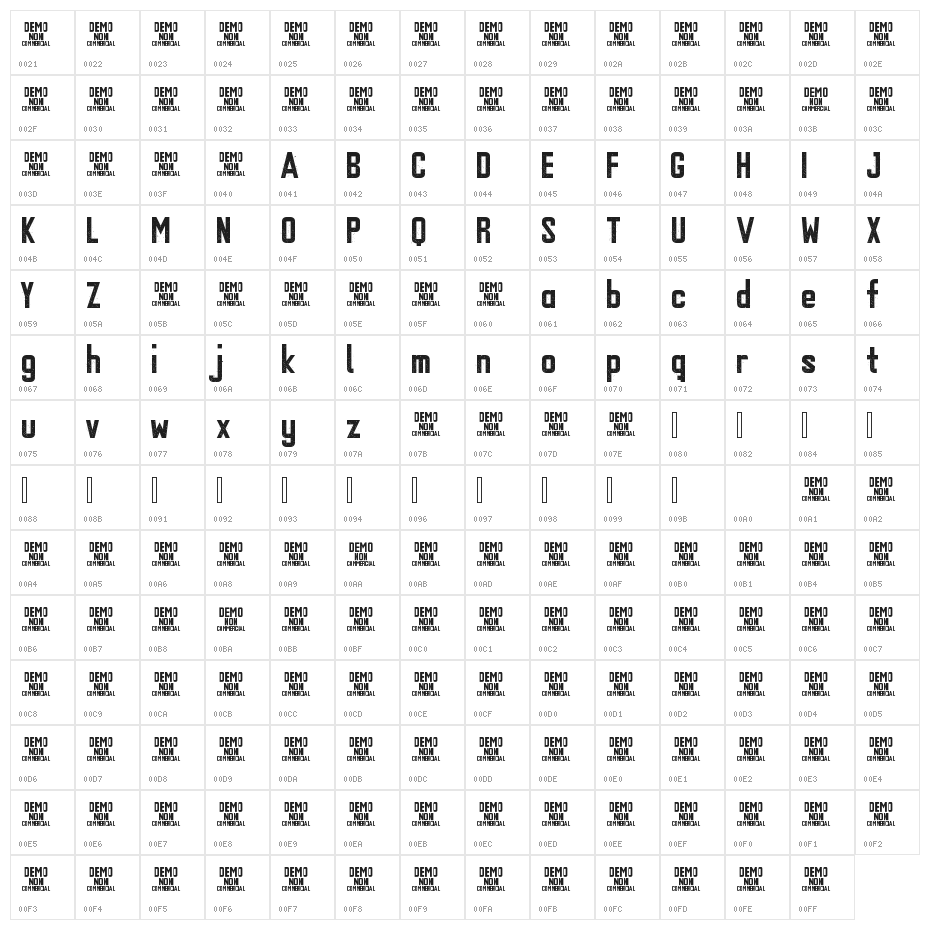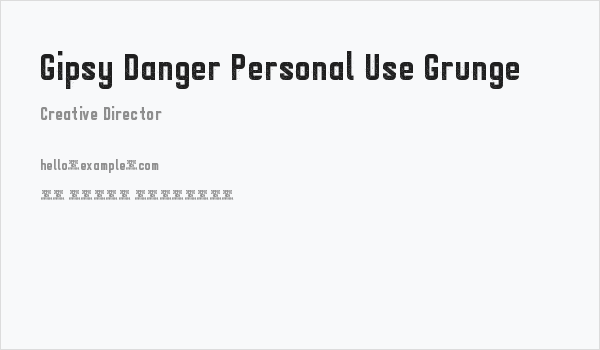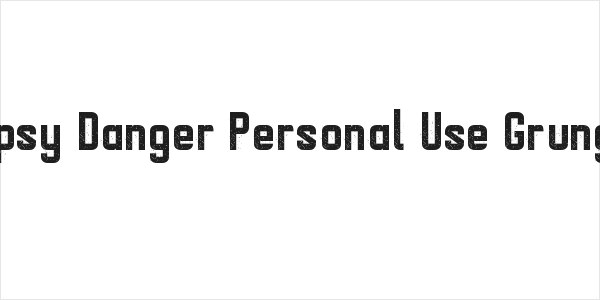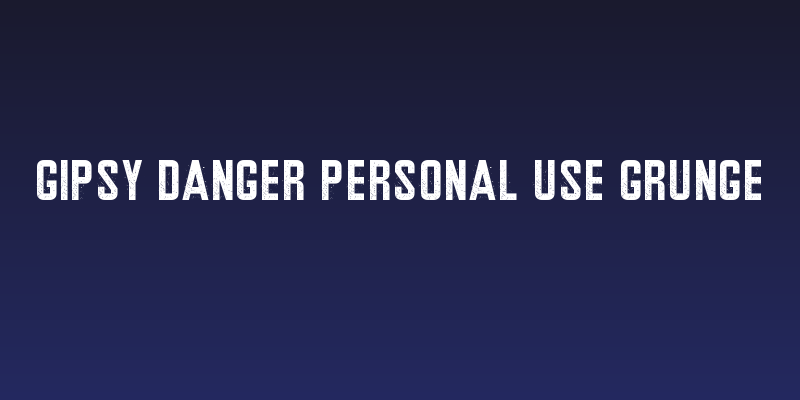
Gipsy Danger Personal Use Grunge Font
Gipsy Danger Personal Use Grunge Description
This font features a bold, distressed style with a grunge texture that gives it a rugged, worn appearance. The uppercase and lowercase letters maintain a consistent weight, providing a strong and impactful look. The characters are well-defined with sharp edges, and the texture adds a unique, vintage feel. The numerals and special characters follow the same design, ensuring uniformity across all glyphs. This font is ideal for projects that require a bold statement or an edgy, urban aesthetic.
| Proposed Projects | Ideal for posters, album covers, branding for edgy or urban-themed projects, and any design needing a bold, impactful statement. |